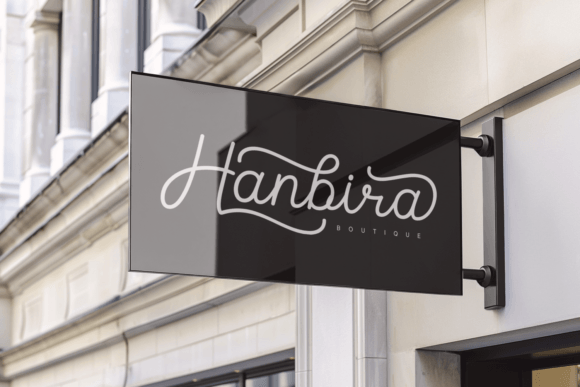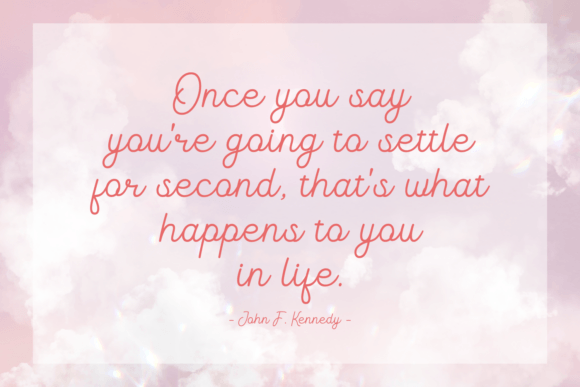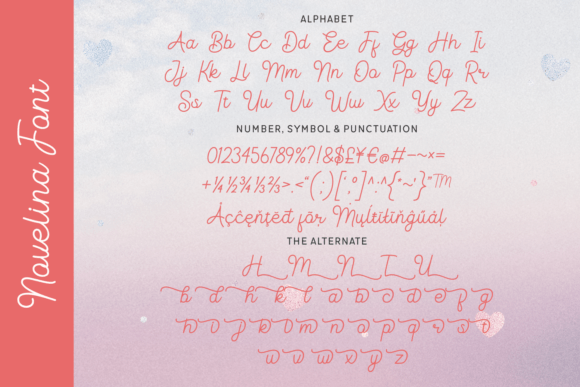
Introduction to Novelina Font
Novelina is a stylish monoline script font that features smooth, flowing lines.
Its elegant design makes it perfect for creating a personal touch in invitations, greeting cards, and logos The font combines a modern look with a classic feel, making it versatile for various projects.
Key Features of Novelina Font
Why Choose Novelina Font?